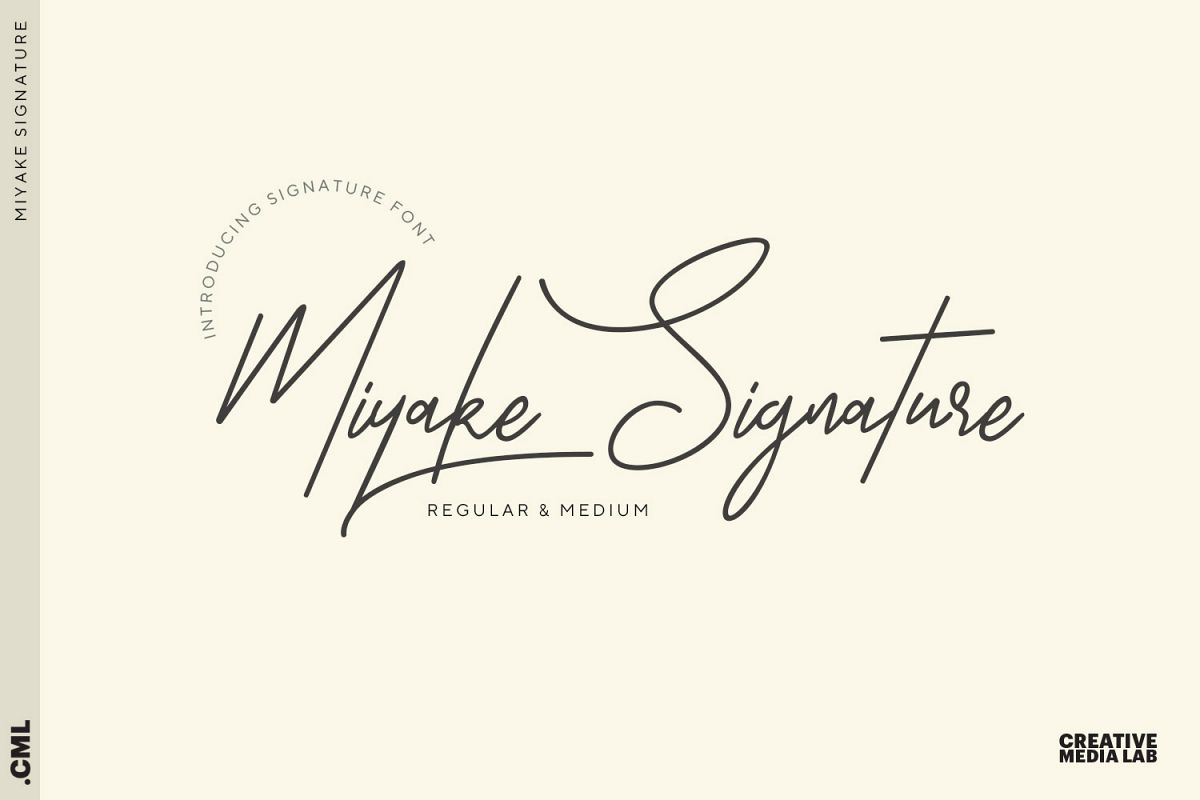
Miyake
Introducing "Miyake" A fashionable new handwriting font script.
In a single style with over 225 glyphs including stylistic set.
Including 2 styles Regular & Medium.
Best for wedding quotes, photography copyright, wedding letter, life quotes.
Miyake